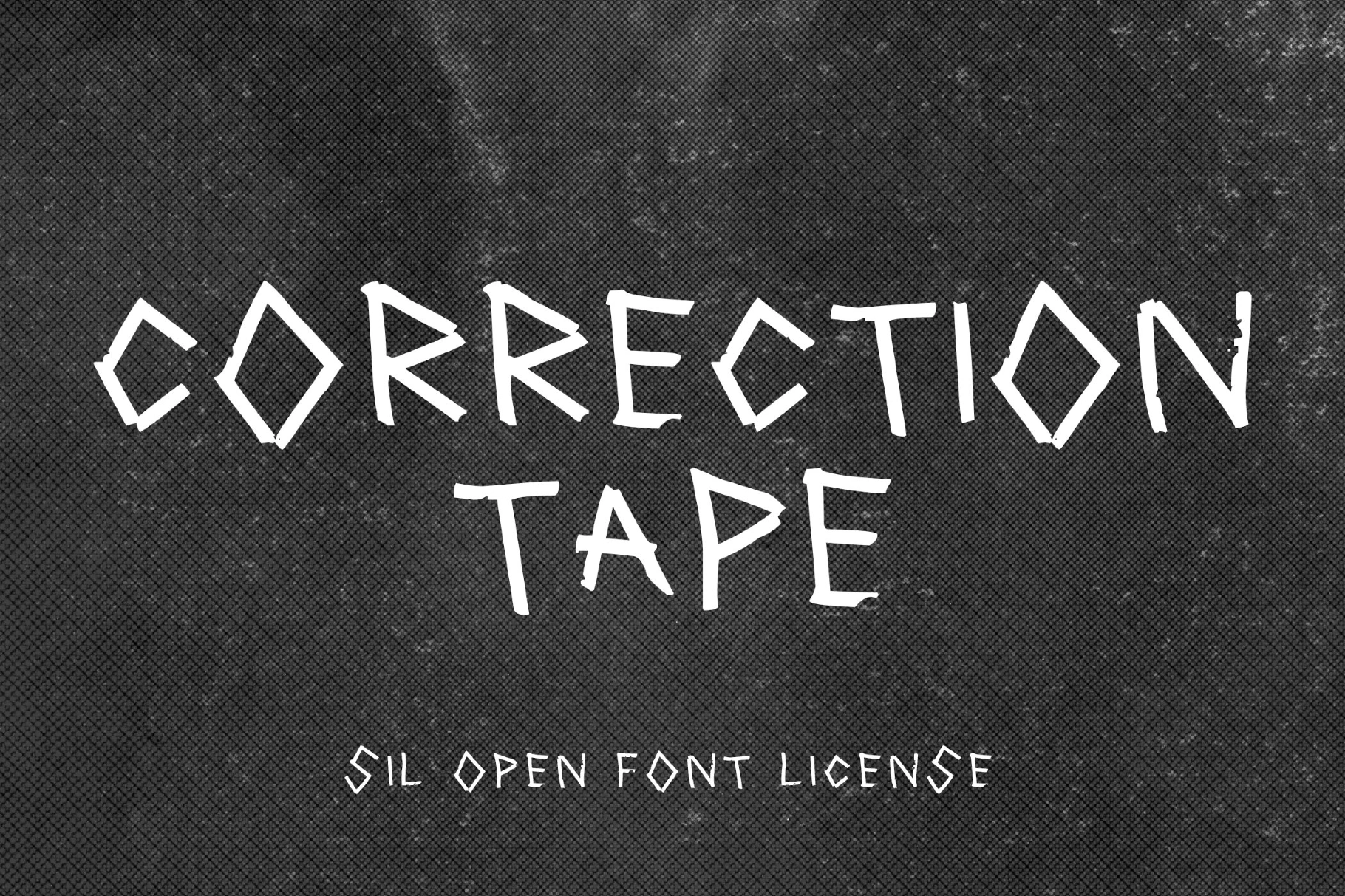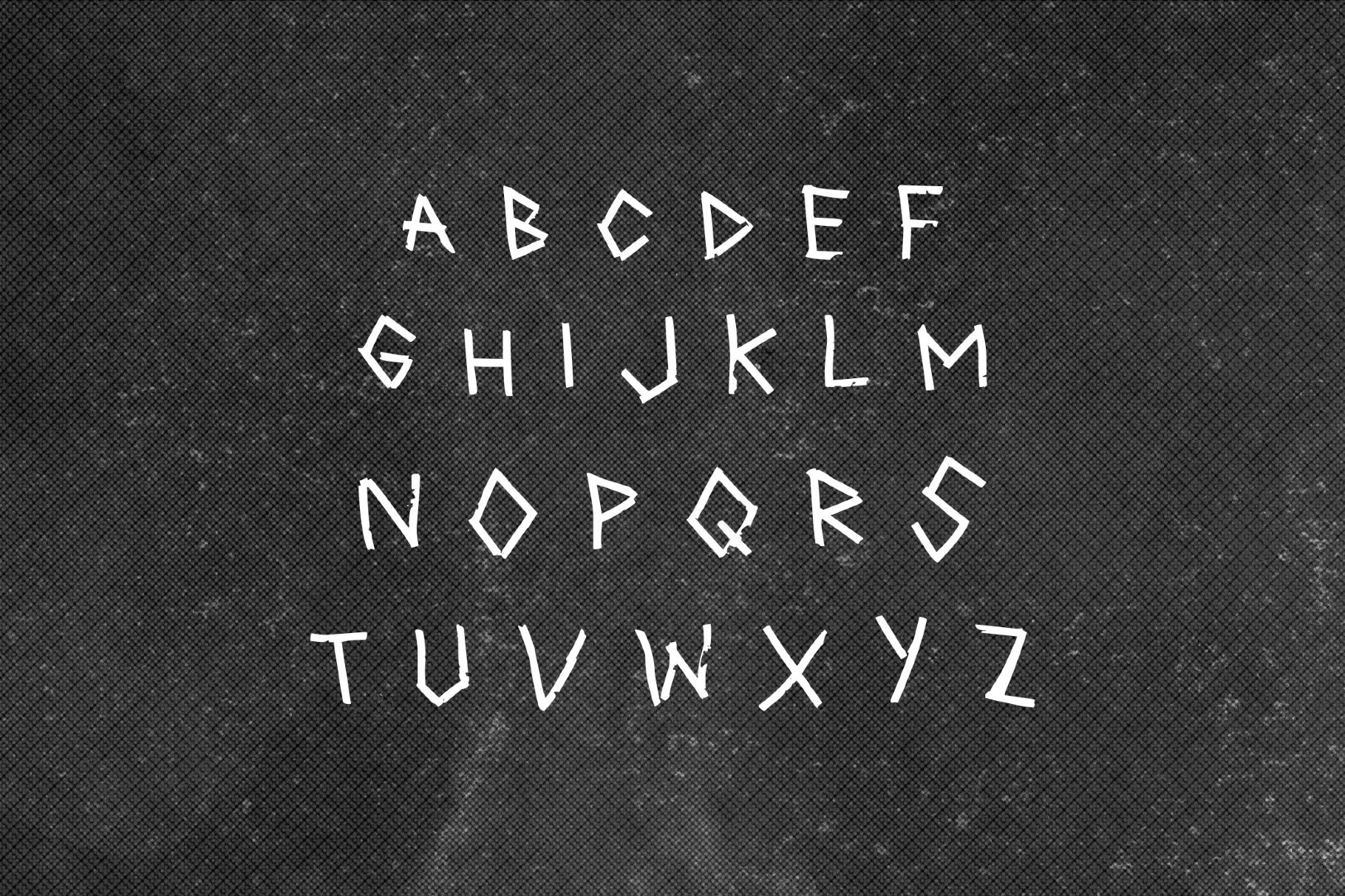
Correction Tape Font
CorrectionTape
Correction Tape is built from sharp, tape-like fragments that feel assembled piece by piece. The creepy letters create a cut-and-paste rhythm, somewhat a collage-like look. The type carries a strong DIY feel, close to something physically assembled from strips and layers. It works well in posters, editorial layouts, branding, packaging, and social media graphics.